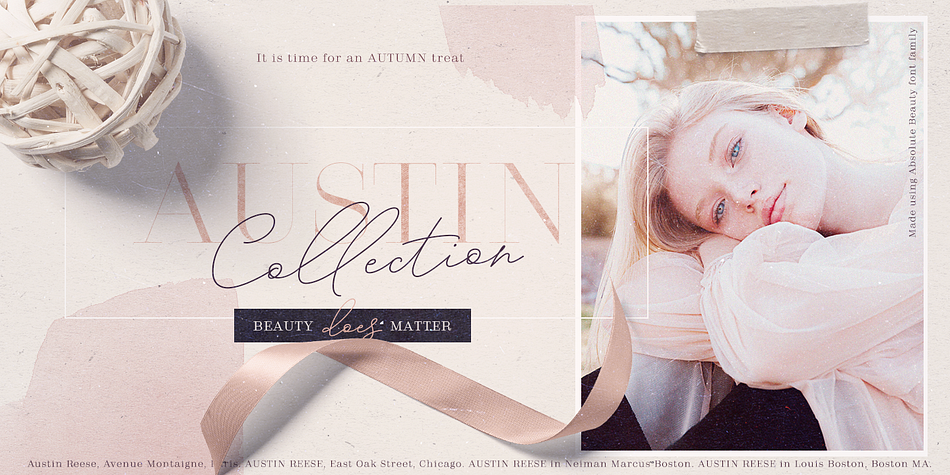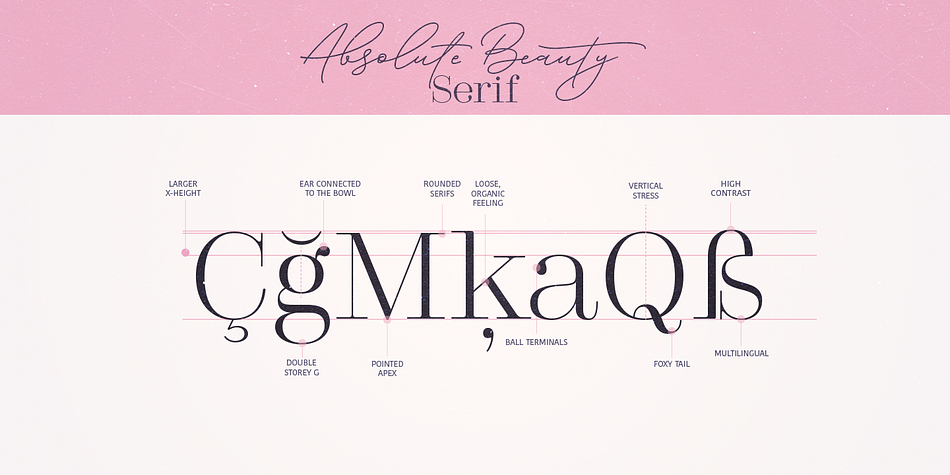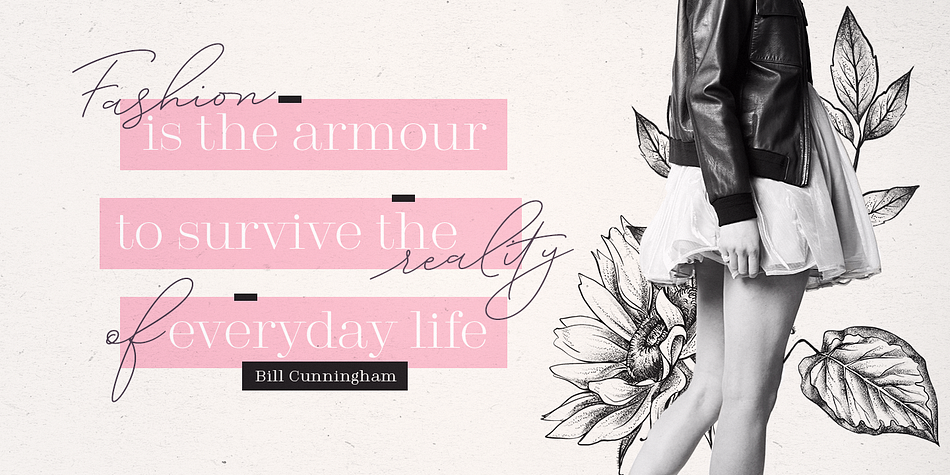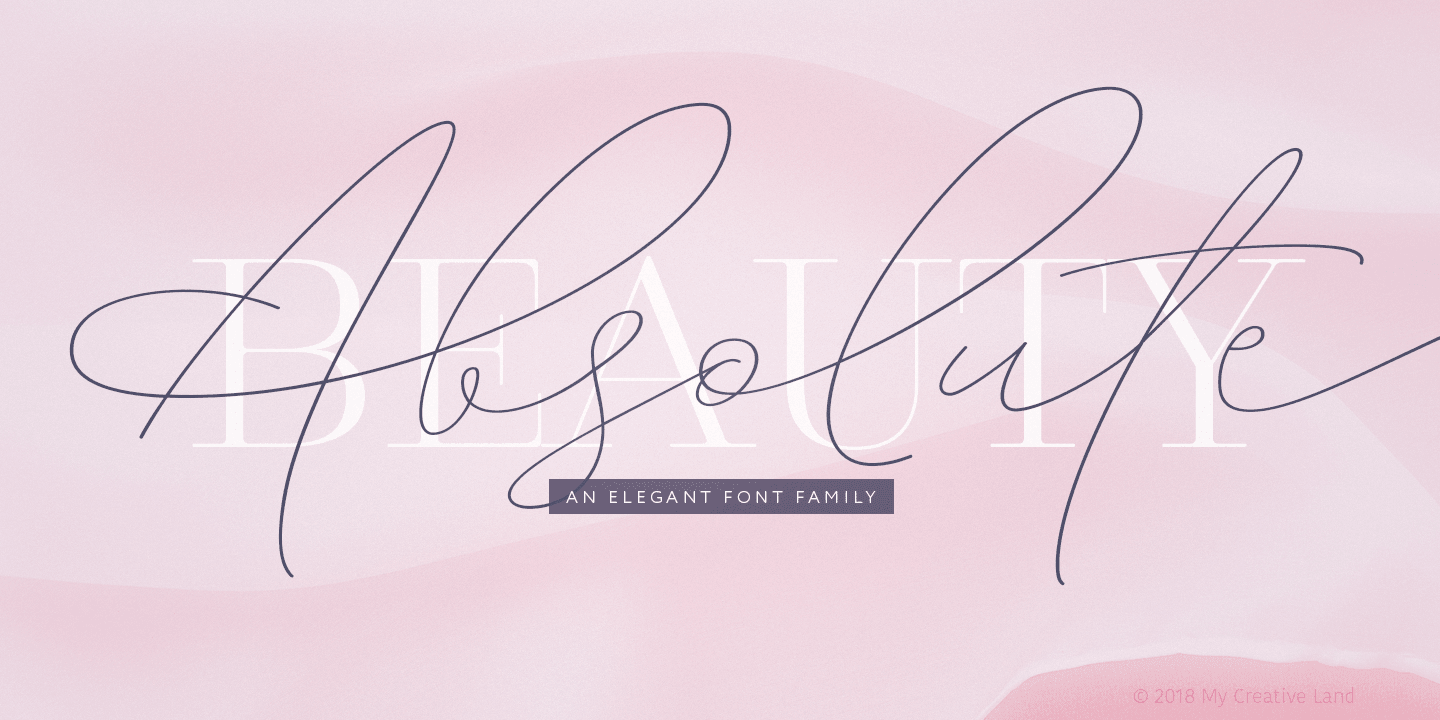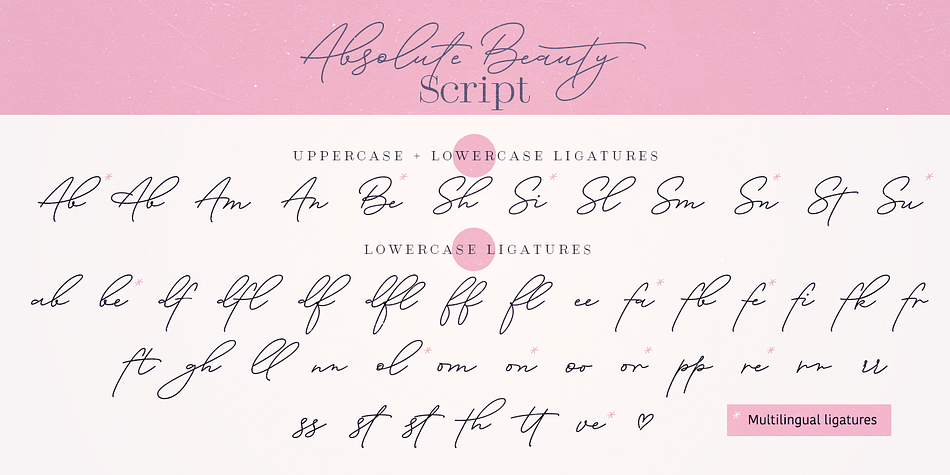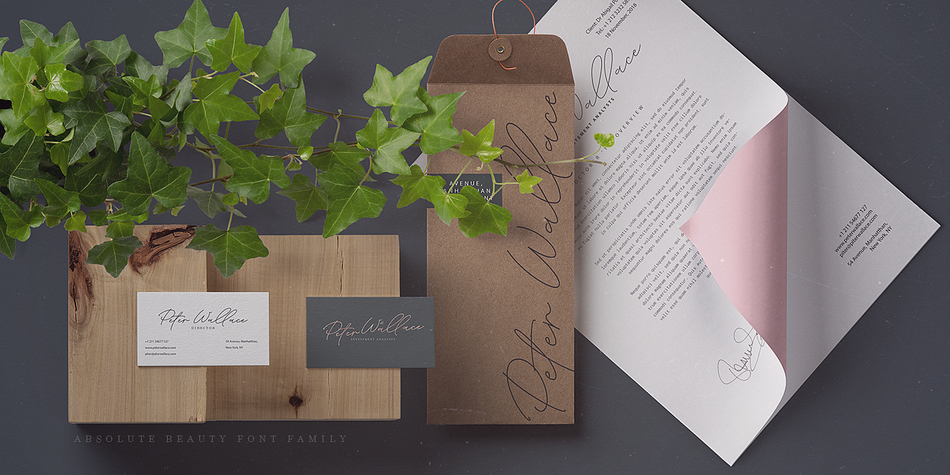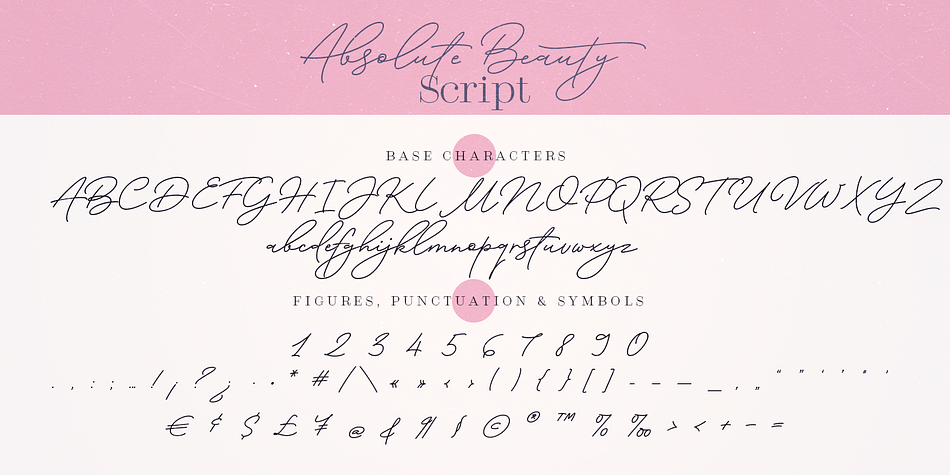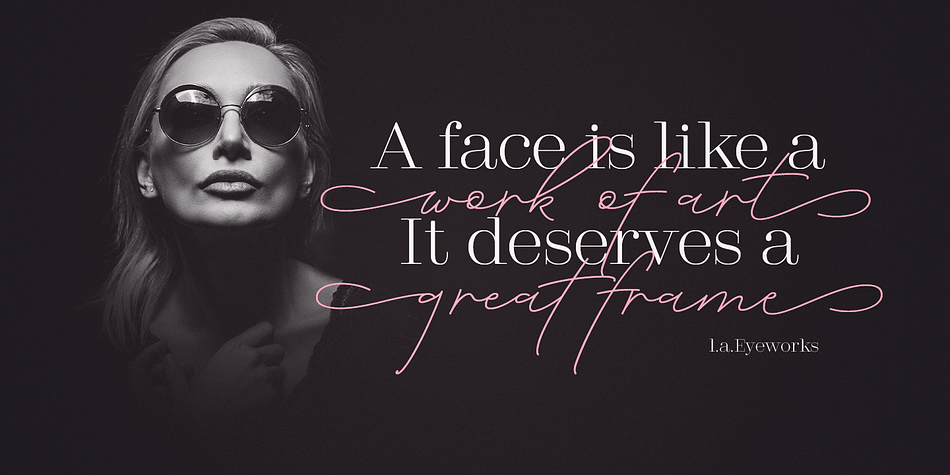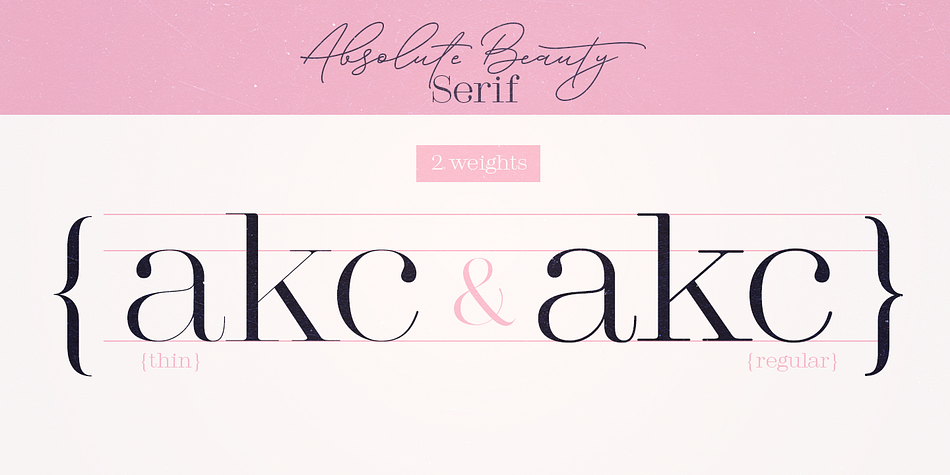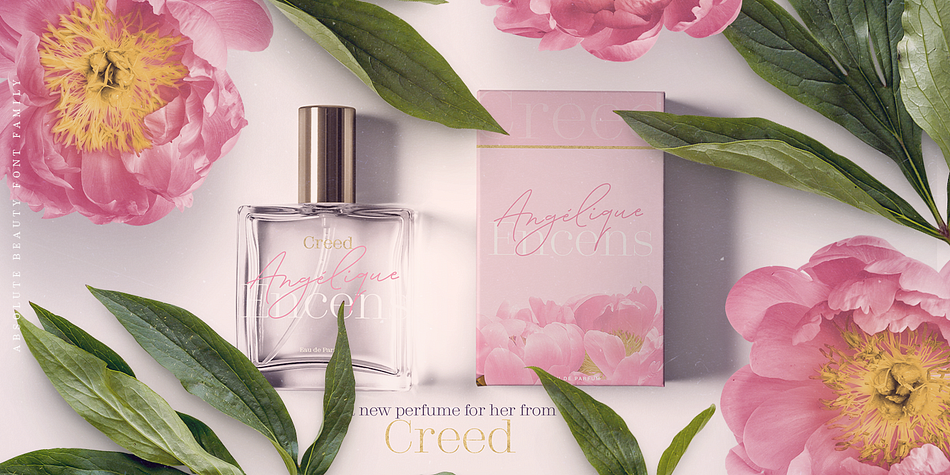
Designed by Elena Genova, Absolute Beauty is a script and serif font family. This typeface has five styles and was published by My Creative Land.
Absolute Beauty is a happy family of a smooth casual monoline signature script and a high contrast elegant didone serif.
The signature script comes in three weights to cover as much design needs as possible - from websites to brand design, from magazines to billboards. It compliments from OpenType features such as ligatures, swashes, stylistic and contextual alternates, and is fully unicode mapped.
Absolute Beauty serif is an ideal partner for the script: it features the same elegance and comes in two weights.